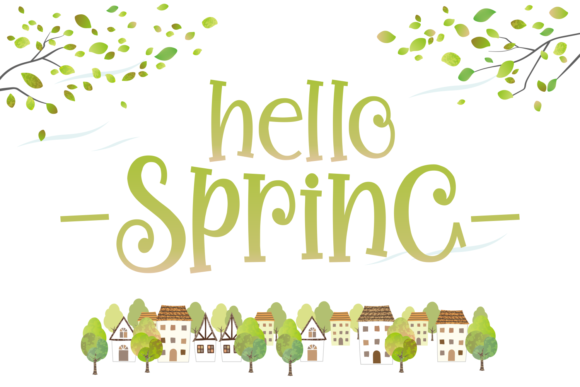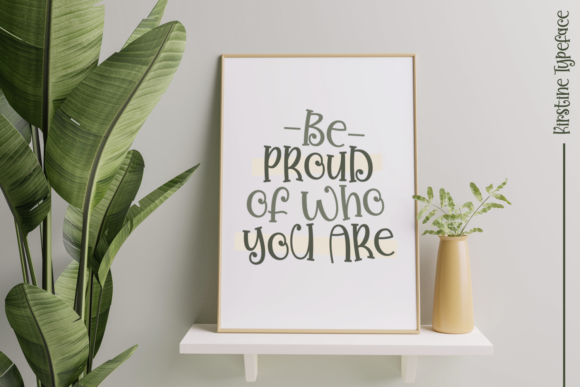
Kirstine Font
db-ku.com - Script & Handwritten -- Kirstine is a fun handwritten font. A little bit quirky, this font looks incredibly adept on a wide variety of contexts!